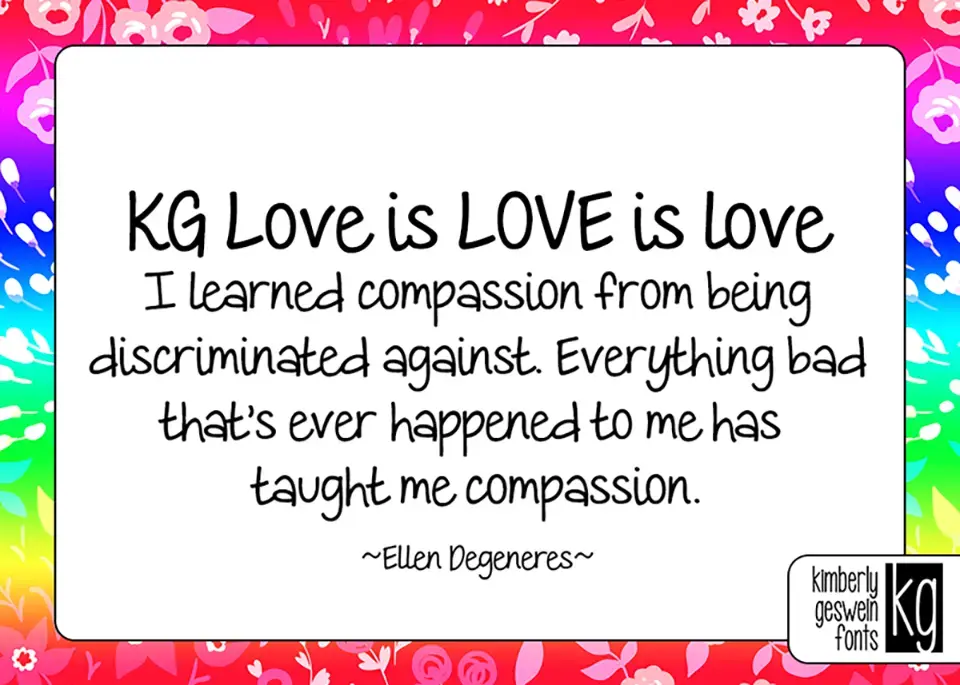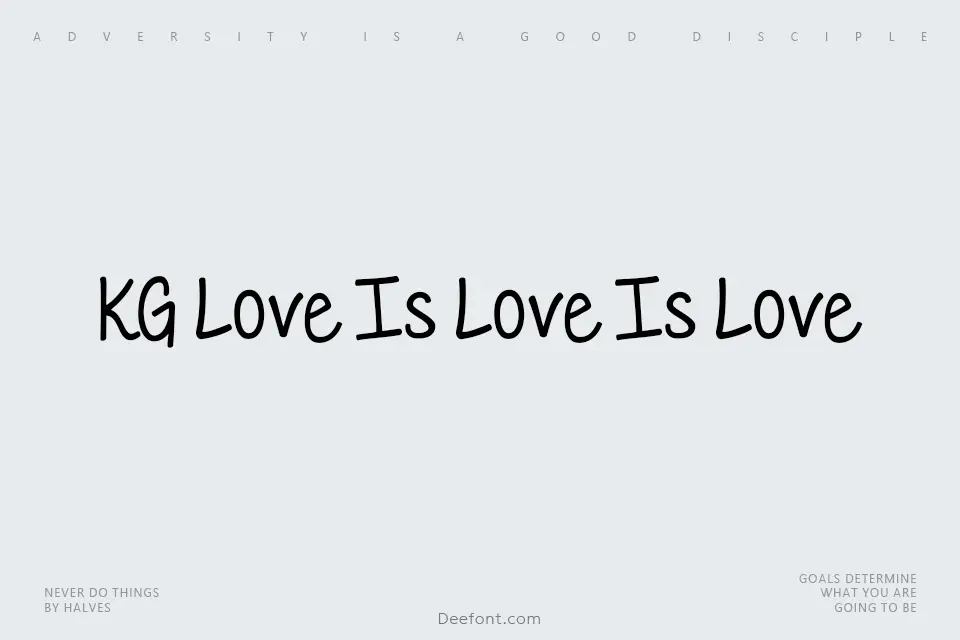
KG Love Is Love Font
KG Love Is Love is a smooth, handwritten sans serif font by Kimberly Geswein. With tight kerning and short descenders, this medium-weight typeface is designed to fit ample text into small spaces. Its neat, hand-drawn aesthetic makes it perfect for teacher resources, scrapbooking, and organized notes, adding a personal yet legible touch to your designs.